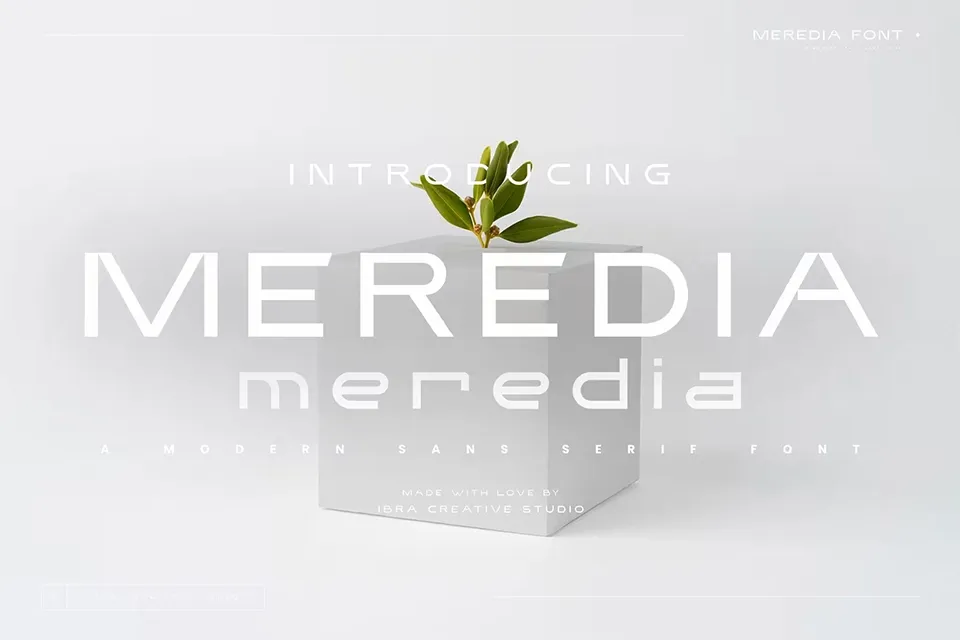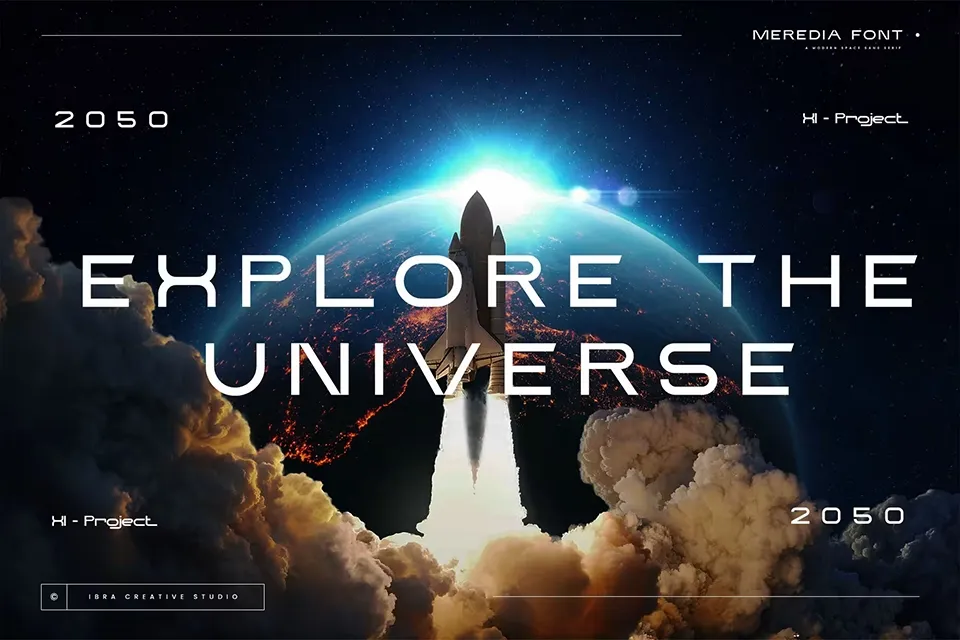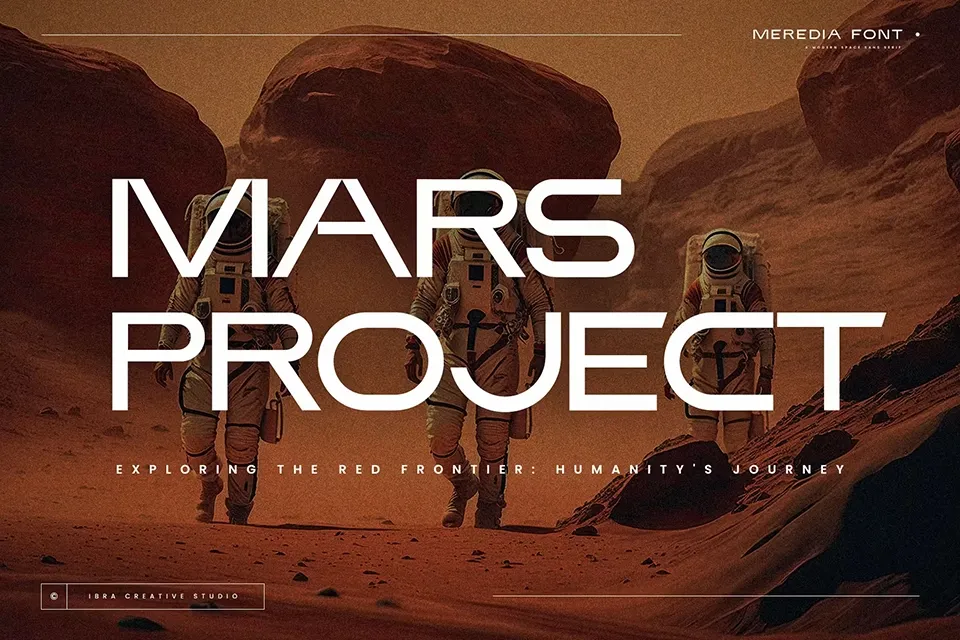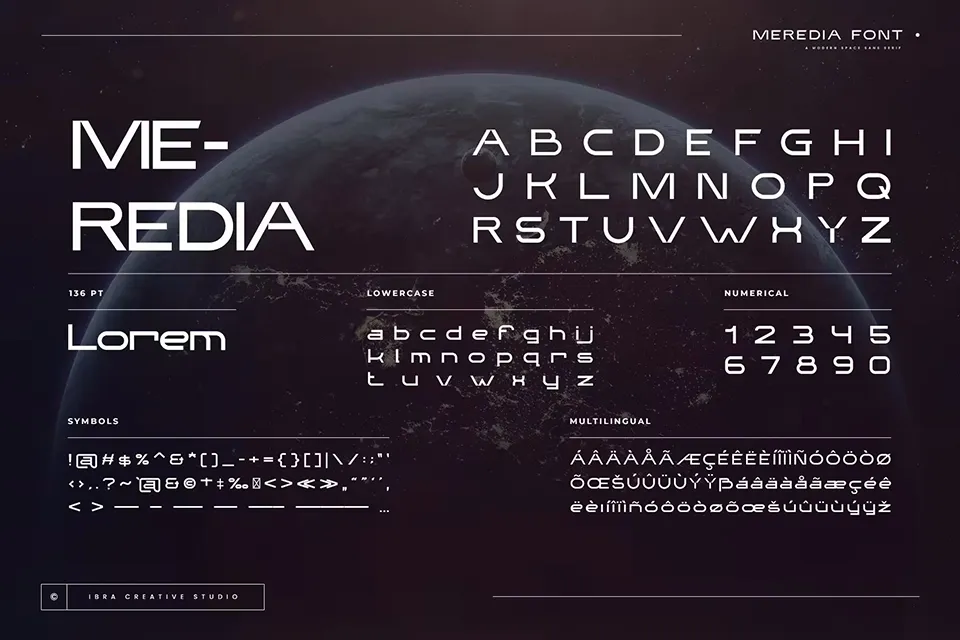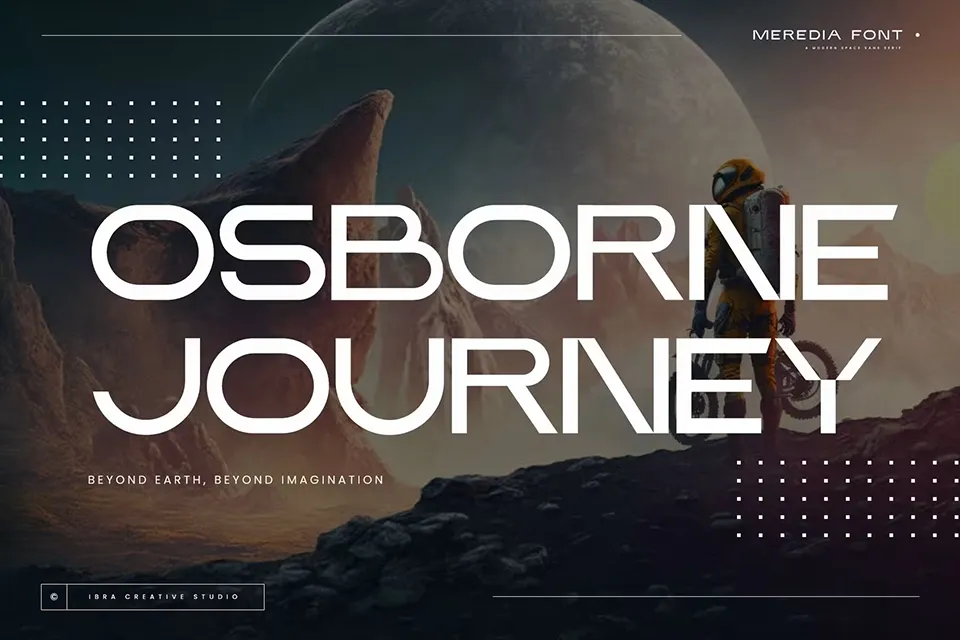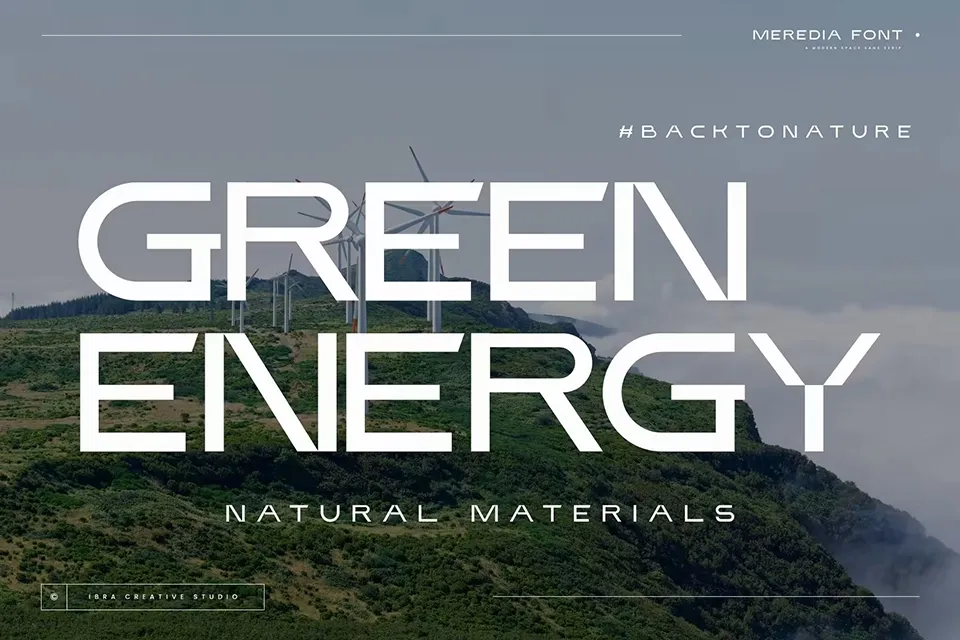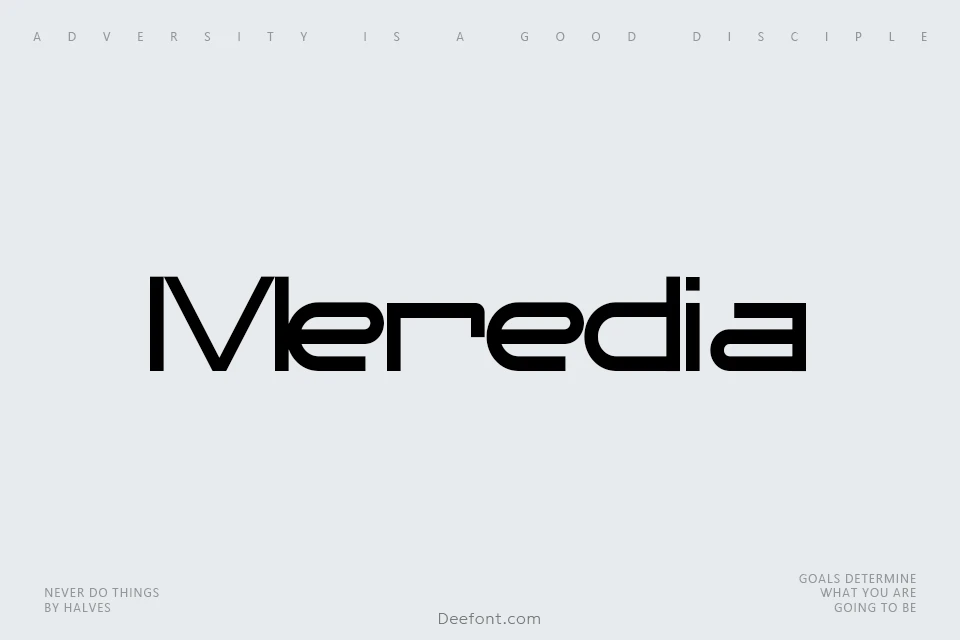
Meredia Font
Meredia Font is a modern spatial sans serif typeface that features sleek lines and geometric forms, making it ideal for contemporary design projects. Its minimalist and neat style brings a sophisticated touch to branding, editorial, and digital applications, ensuring clarity and elegance in any context.